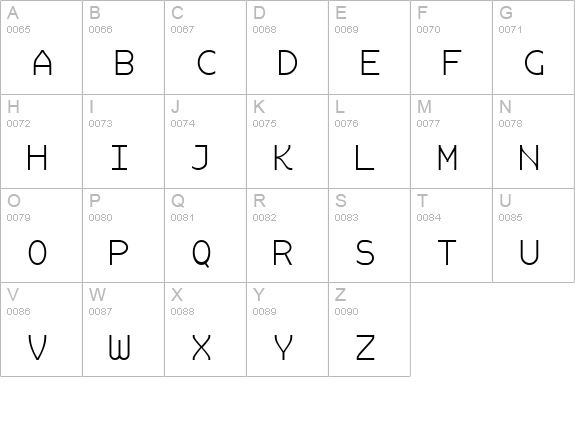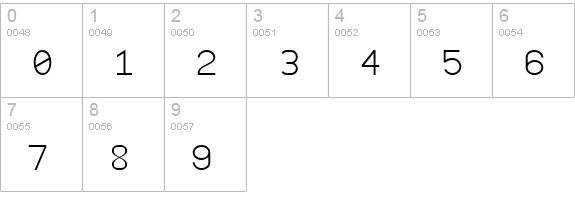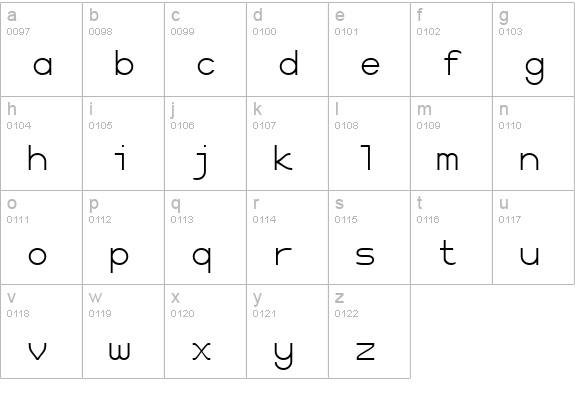
Introducing HyperFont, a modern and versatile font that brings a touch of sophistication to your designs. With its clean lines and stylish curves, HyperFont is perfect for a wide range of projects, from branding to editorial design. The best part? HyperFont is completely free to use! Yes, you read that right. This high-quality font is freely available to download at FontsMarket.com, making it accessible to designers and creatives of all levels. Say goodbye to expensive font licenses and hello to endless design possibilities with HyperFont. Whether you're working on a logo, website, or social media graphics, HyperFont has got you covered. Its sleek and contemporary design will elevate your projects and make them stand out from the crowd. Download HyperFont today and start creating stunning designs with ease.